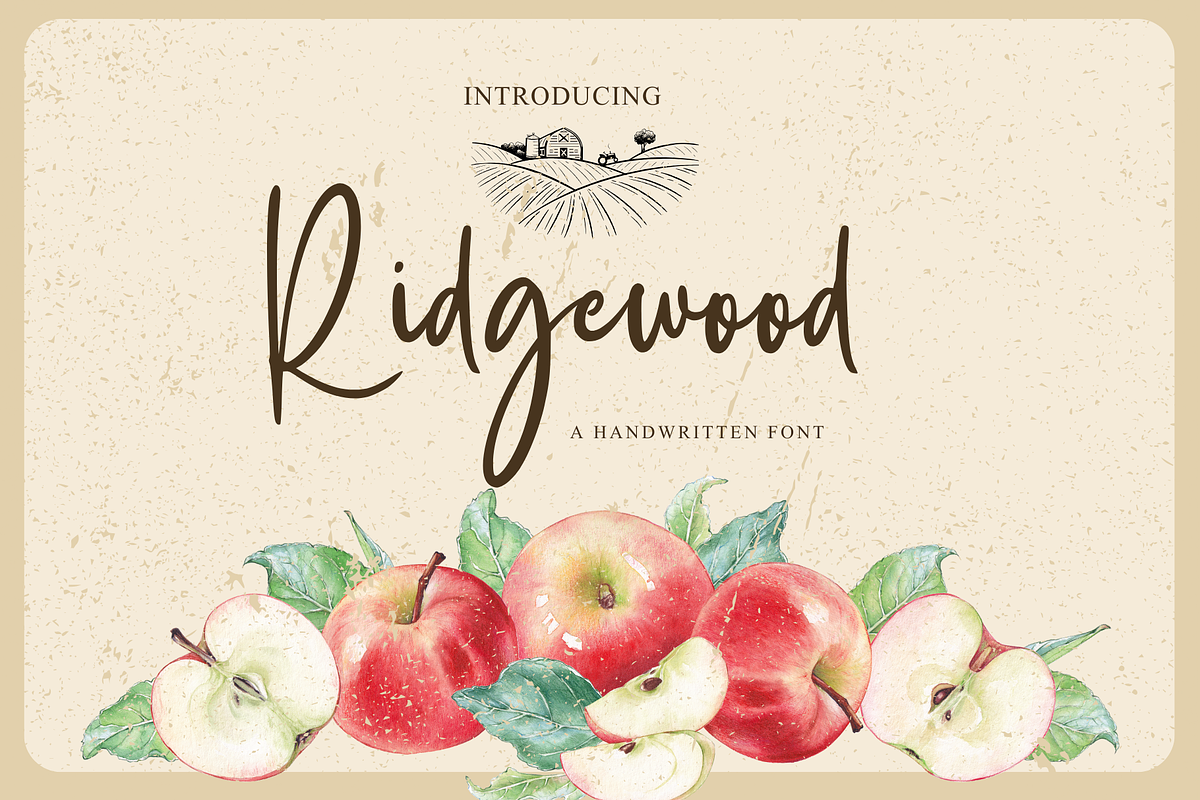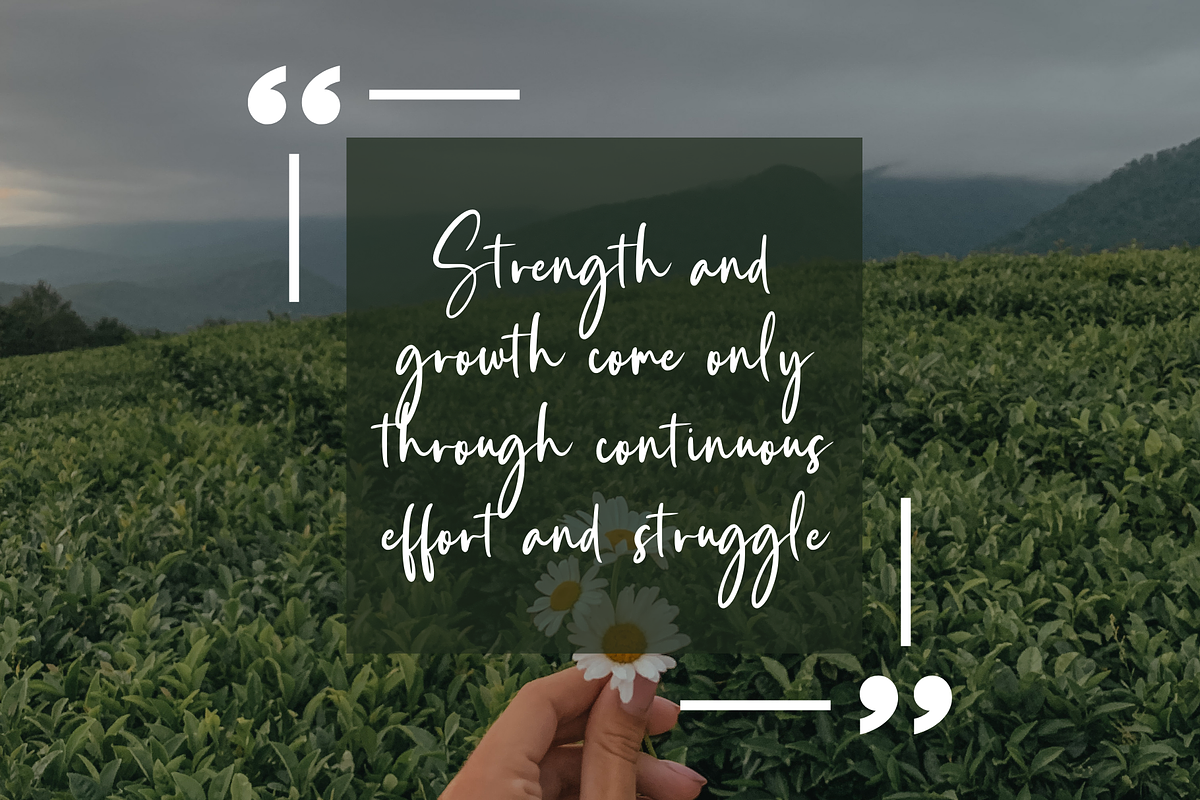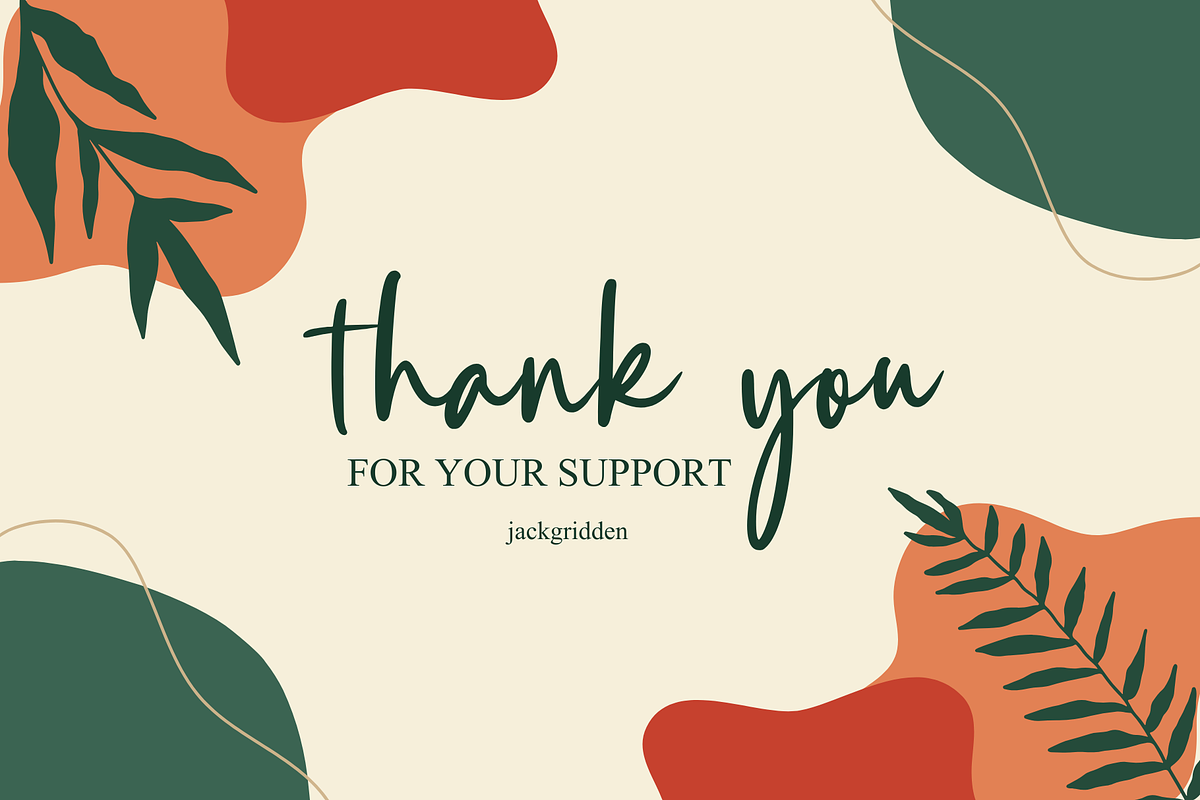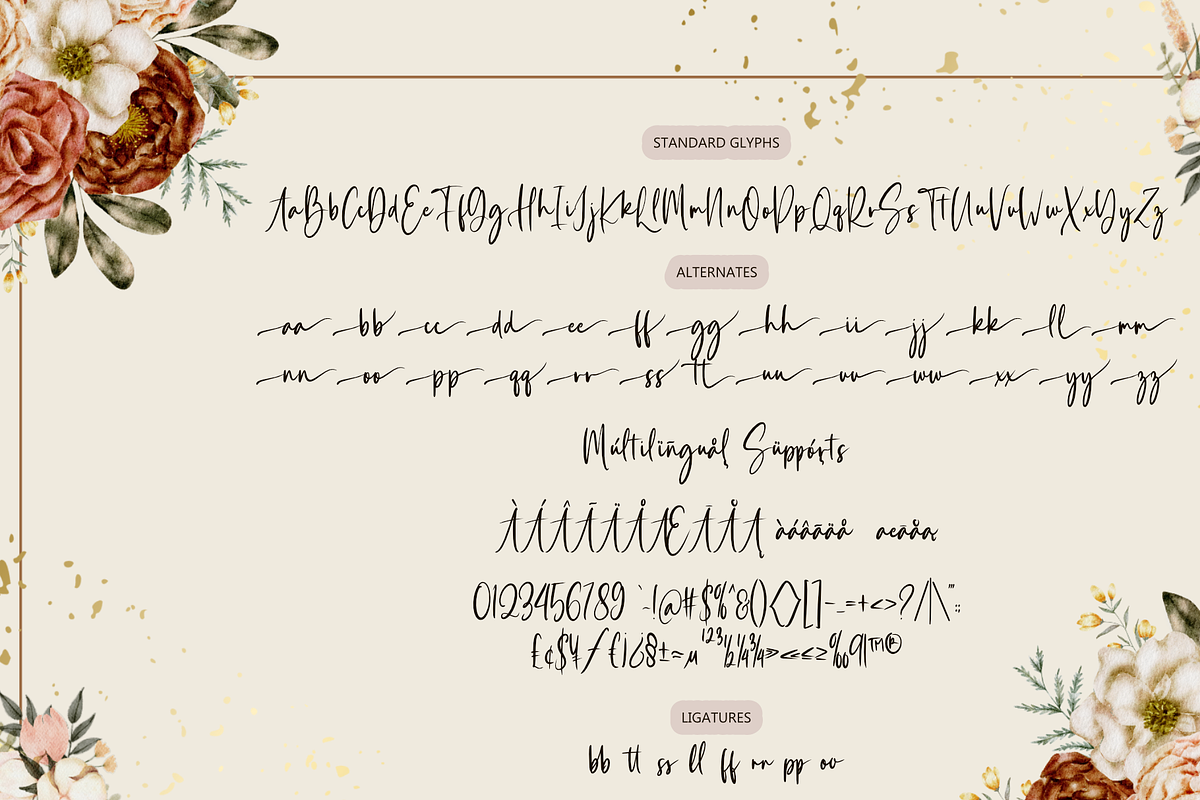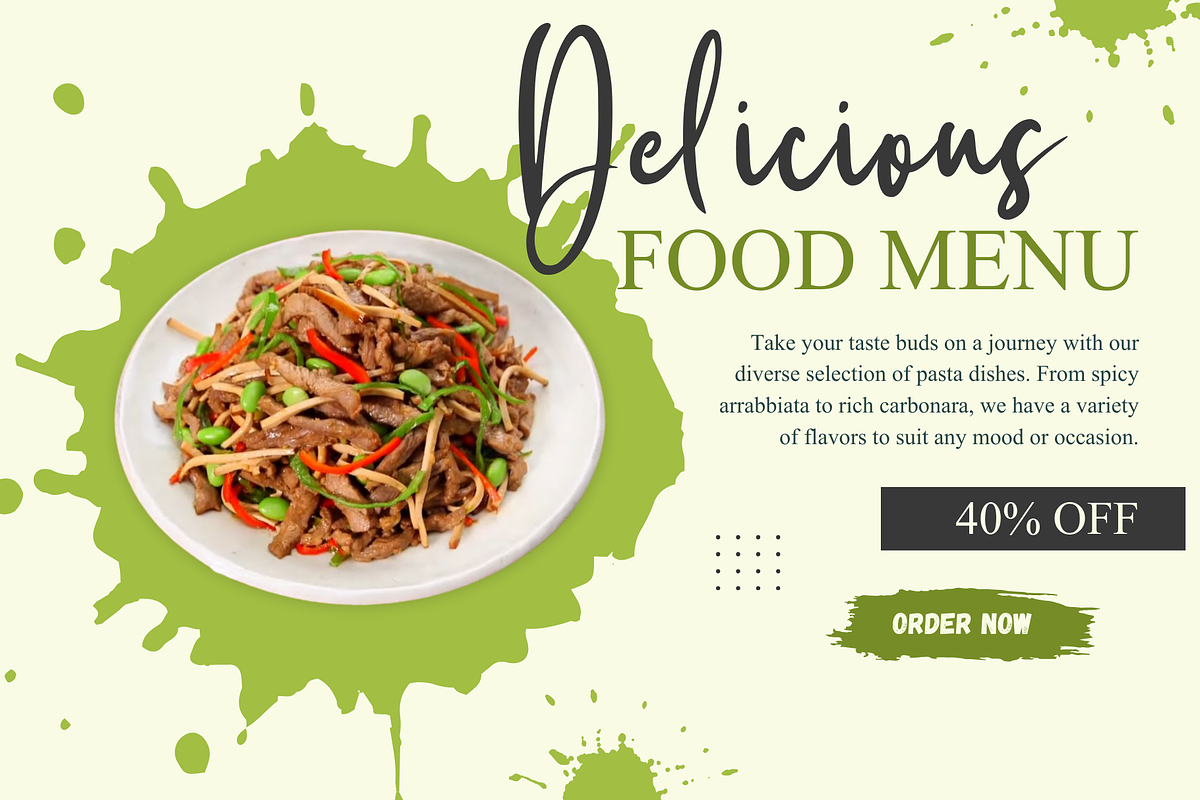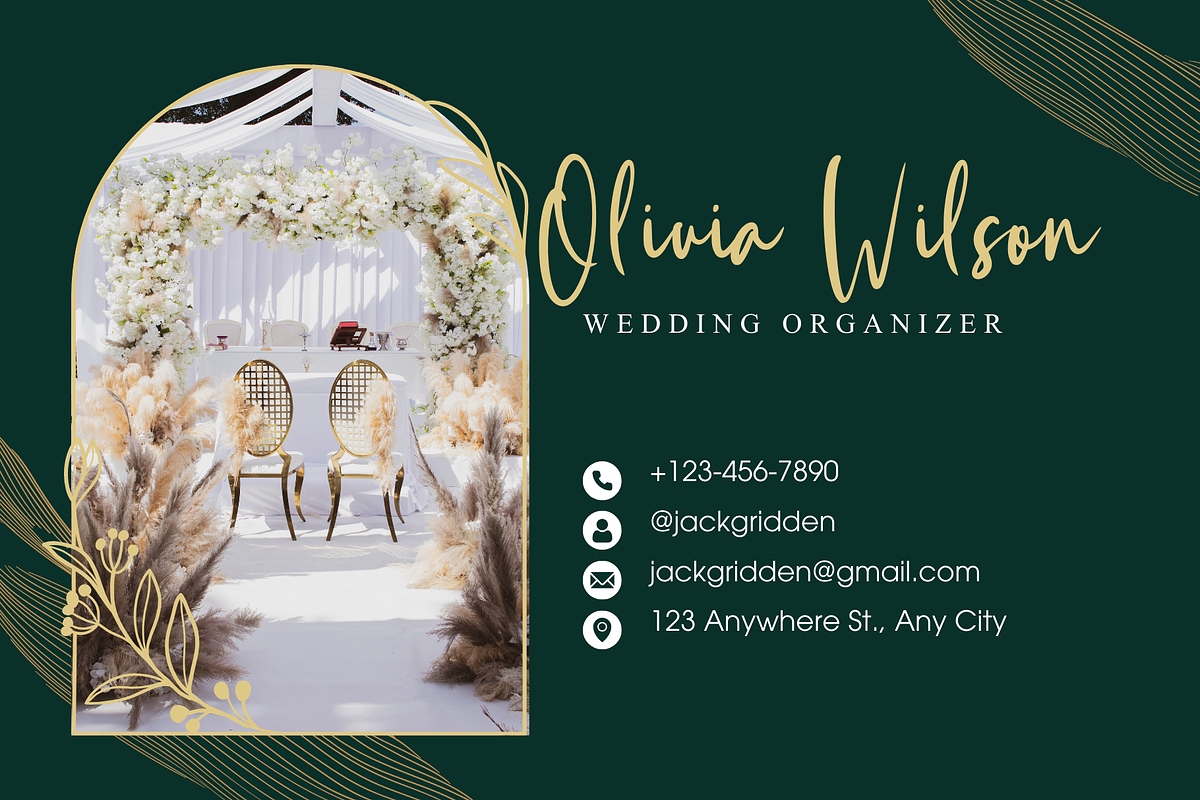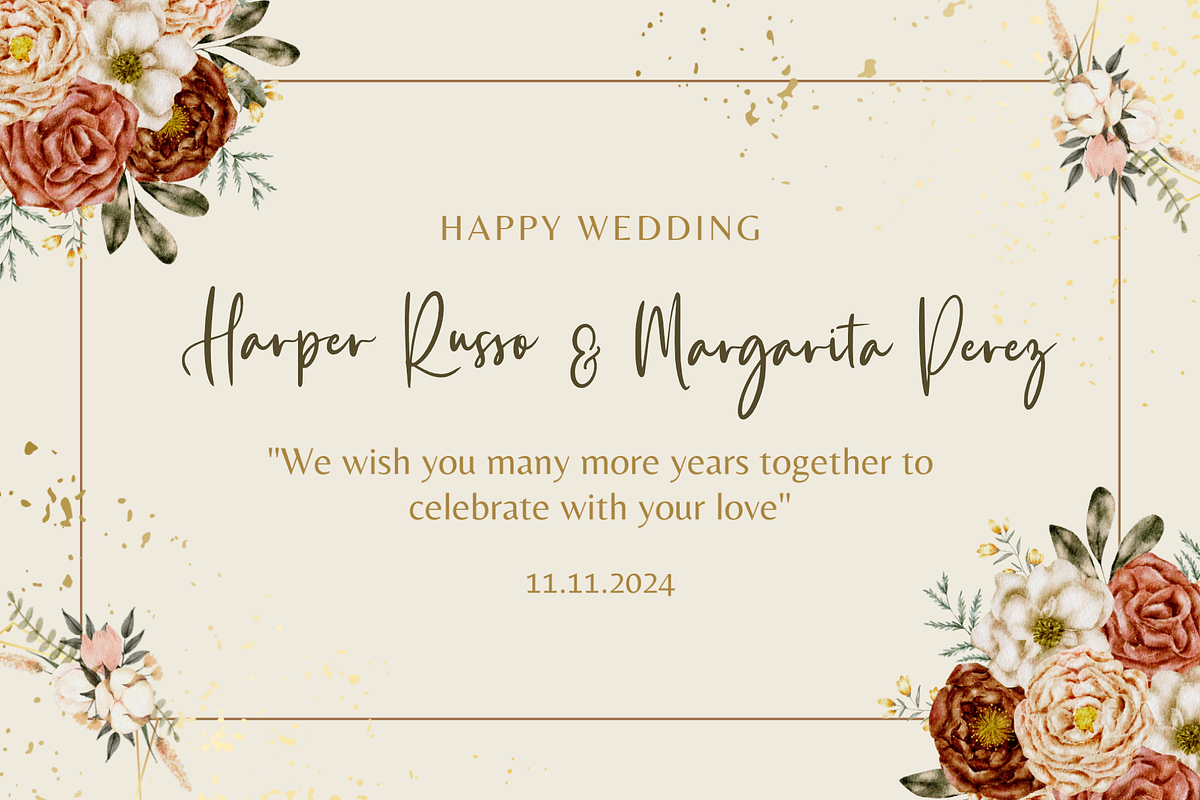
Ridgewood
Introducing Ridgewood, a beautifully handcrafted font that captures the elegance and warmth of natural, organic design. This versatile script font combines smooth, flowing curves with an effortless hand-lettered charm, perfect for creating eye-catching designs that stand out.
Whether you're working on branding, invitations, packaging, or social media graphics, Ridgewood brings a touch of authenticity and sophistication to any project. Inspired by the beauty of nature, the gentle slopes of the hills, and the quiet charm of a woodland retreat, this font is ideal for modern creatives who appreciate a balance of elegance and rustic appeal.